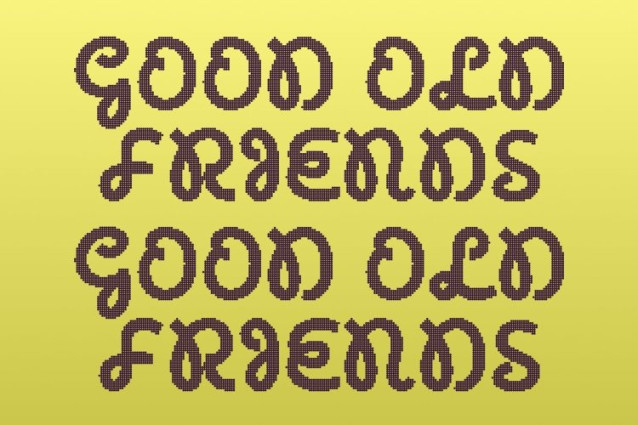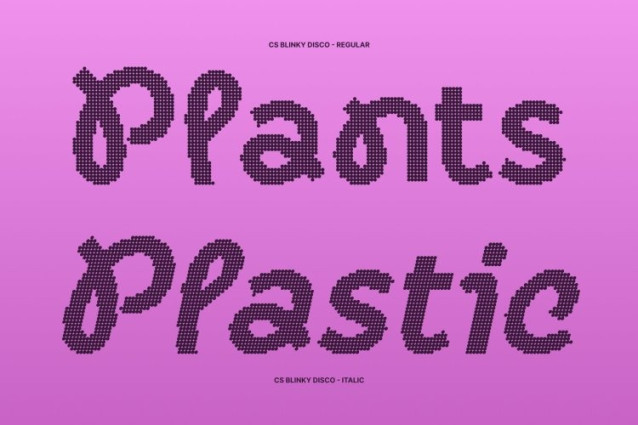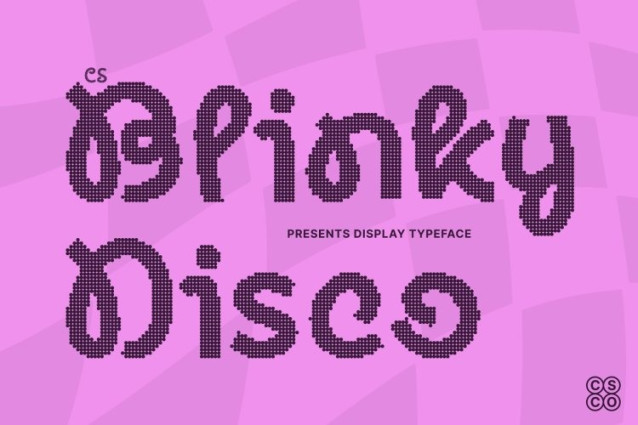
CS Blinky Disco Font
CS Blinky Disco Font This is a modern experimental sans serif font created to celebrate creativity and originality. Its distinctive letterforms and quirky details break away from convention, delivering a bold typographic identity that feels fresh, imaginative, and full of personality.
Distinctive Shapes with Disco-Inspired Rhythm
Each letter in this font combines clean geometric foundations with playful irregularities, creating a unique visual rhythm. The added disco influence introduces movement and sparkle evoking flashing lights and vibrant beats turning every word into a lively visual experience that feels artistic and contemporary.
Perfect for Playful, Creative, and Party-Ready Branding
This font excels in posters, logos, editorial layouts, and expressive branding projects. Its eye-catching design adds a sense of fun and originality to brand identities, event promotions, and social media visuals. Ideal for party-themed graphics, creative campaigns, and youthful designs that want to shine and stand out.
Versatile, Fresh, and Energetically Fun
Despite its experimental nature, this font remains readable and versatile. It balances playful expression with functional clarity, making it a reliable choice for modern creatives. Bold, joyful, and innovative, this font embodies design freedom with a vibrant disco spirit perfect for projects that embrace imagination and energy.